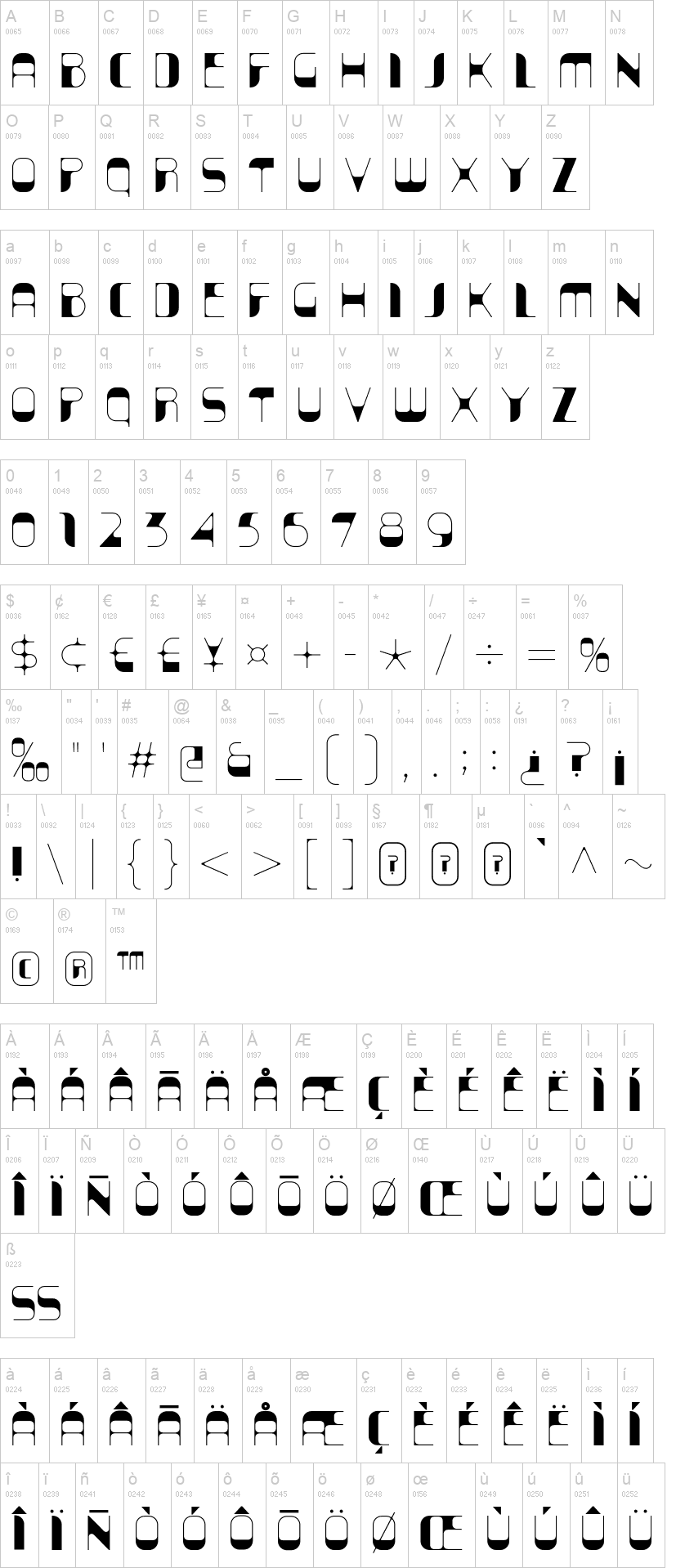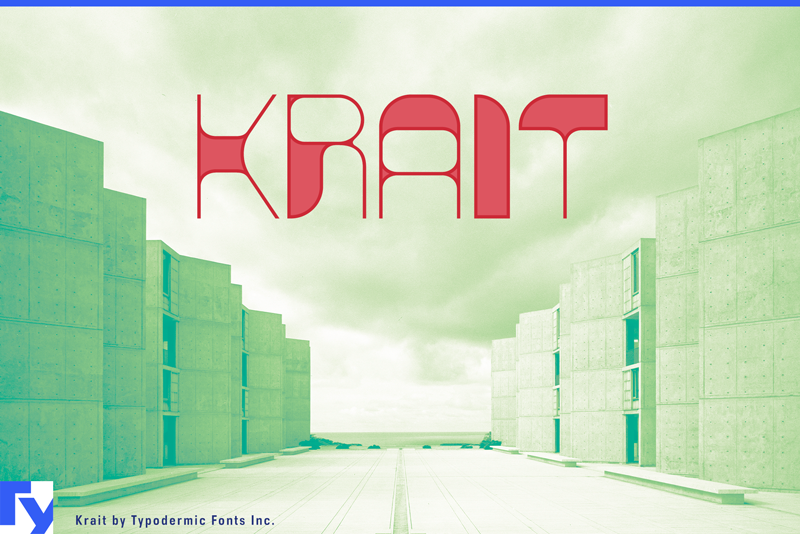
Krait Hollow.otfKrait Fill.otfNote of the authorKrait is a layered geometric typeface designed for architectural display. It avoids classic art-deco thick-thin clichés in order to blend in with non-traditional settings. Experiment with inventive layer and offset combinations. Most Latin-based European, Vietnamese, Greek, and most Cyrillic-based writing systems are supported, including the following languages. Afaan Oromo, Afar, Afrikaans, Albanian, Alsatian, Aromanian, Aymara, Azerbaijani, Bashkir, Bashkir (Latin), Basque, Belarusian, Belarusian (Latin), Bemba, Bikol, Bosnian, Breton, Bulgarian, Buryat, Cape Verdean, Creole, Catalan, Cebuano, Chamorro, Chavacano, Chichewa, Crimean Tatar (Latin), Croatian, Czech, Danish, Dawan, Dholuo, Dungan, Dutch, English, Estonian, Faroese, Fijian, Filipino, Finnish, French, Frisian, Friulian, Gagauz (Latin), Galician, Ganda, Genoese, German, Gikuyu, Greenlandic, Guadeloupean Creole, Haitian Creole, Hawaiian, Hiligaynon, Hungarian, Icelandic, Igbo, Ilocano, Indonesian, Irish, Italian, Jamaican, Kaingang, Khalkha, Kalmyk, Kanuri, Kaqchikel, Karakalpak (Latin), Kashubian, Kazakh, Kikongo, Kinyarwanda, Kirundi, Komi-Permyak, Kurdish, Kurdish (Latin), Kyrgyz, Latvian, Lithuanian, Lombard, Low Saxon, Luxembourgish, Maasai, Macedonian, Makhuwa, Malay, Maltese, Māori, Moldovan, Montenegrin, Nahuatl, Ndebele, Neapolitan, Norwegian, Novial, Occitan, Ossetian (Latin), Papiamento, Piedmontese, Polish, Portuguese, Quechua, Rarotongan, Romanian, Romansh, Russian, Rusyn, Sami, Sango, Saramaccan, Sardinian, Scottish Gaelic, Serbian, Serbian (Latin), Shona, Sicilian, Silesian, Slovak, Slovenian, Somali, Sorbian, Sotho, Spanish, Swahili, Swazi, Swedish, Tagalog, Tahitian, Tajik, Tatar, Tetum, Tongan, Tshiluba, Tsonga, Tswana, Tumbuka, Turkish, Turkmen (Latin), Tuvaluan, Ukrainian, Uzbek, Uzbek (Latin), Venda, Venetian, Vepsian, Vietnamese, Võro, Walloon, Waray-Waray, Wayuu, Welsh, Wolof, Xavante, Xhosa, Yapese, Zapotec, Zarma, Zazaki, Zulu and Zuni.